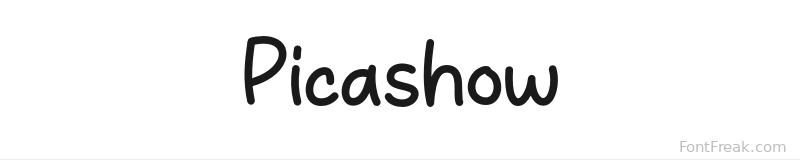
Picashow
About Picashow
Picashow by MJType is a charming display font that captures attention with its playful and whimsical design. This font falls into the category of handwritten styles, characterized by its fluid, organic letterforms that evoke a sense of creativity and friendliness. The strokes are moderately thick, offering a balanced contrast that enhances legibility while maintaining a casual, inviting appearance. The spacing between the letters is generous, ensuring that the text flows seamlessly and remains easy to read, making it an excellent choice for various applications.
The Picashow font is particularly well-suited for use in creative projects such as wedding invitations, where its unique character can convey warmth and personalization. It also shines in the realm of children's book covers, adding an element of fun that appeals to young readers. Additionally, this font works wonderfully for restaurant menus, providing a lively touch that can enhance the dining experience. Graphic designers will find it useful for crafting engaging social media graphics and promotional materials, making it a versatile addition to any designer's toolkit.
What truly sets the Picashow font apart is its blend of approachability and style. It stands out in a crowded font landscape due to its unique handwritten quality, which adds a personal touch to any project. Whether you're designing for a special occasion or looking to elevate your brand's visual identity, the Picashow font free download is a fantastic choice for those seeking something both distinctive and versatile.